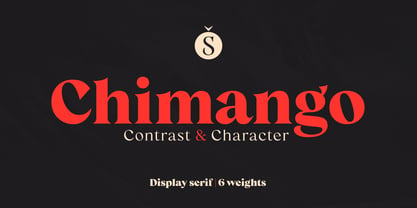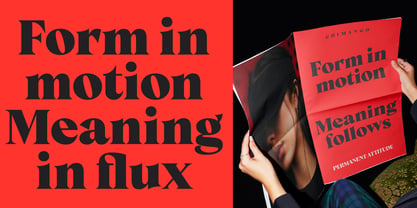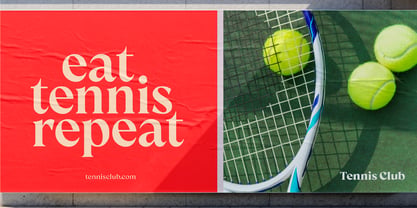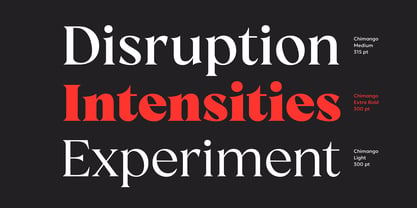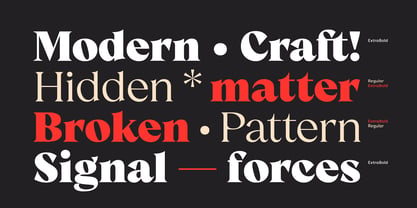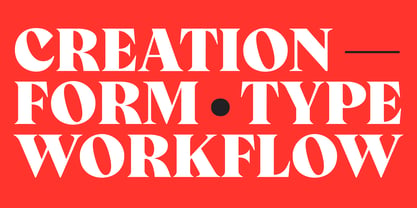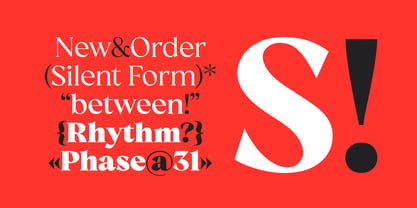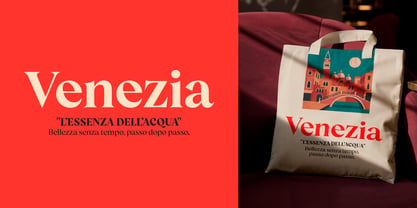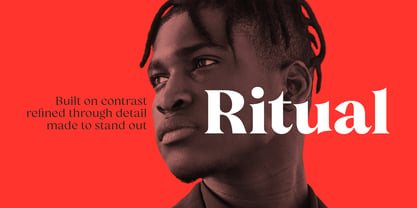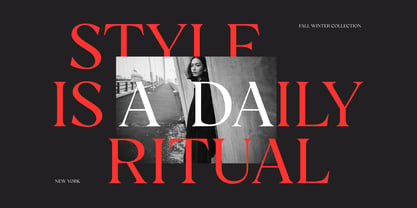
Chimango
The Chimango Font Family was designed by Eduardo Dulin and published by Sudtipos. Chimango contains 7 styles and family package options. More about this family
Chimango is a high-contrast serif typeface designed to take center stage in headlines, visual identities, and editorial applications. Its construction balances tension and fluidity, exploring the space between expressive forms and a solid underlying structure that ensures clarity and readability.
Rooted in classic serif principles—stroke contrast, structural tension, and the dialogue between straight and curved forms—Chimango reinterprets these elements through a contemporary lens. Rather than following a specific historical model, it builds a distinct and current voice shaped by gesture, proportion, and visual weight.
The family spans six weights, from Light to ExtraBold. The lighter styles bring flexibility and refinement, while the heavier weights amplify its expressive strength and visual impact.
Chimango is a typeface with presence—crafted to build identity, command attention, and deliver a strong typographic voice of its own.